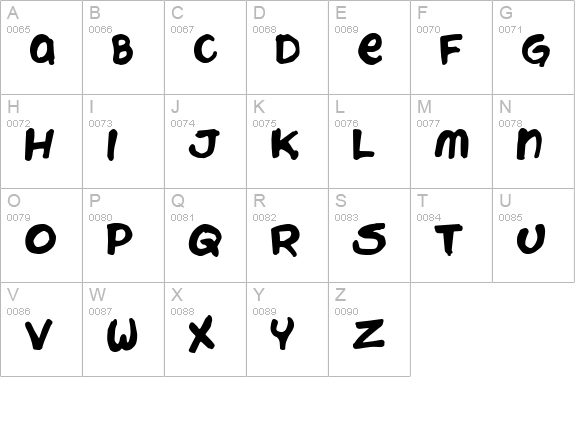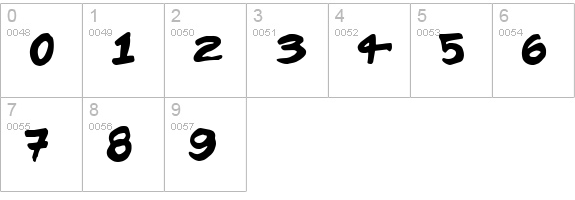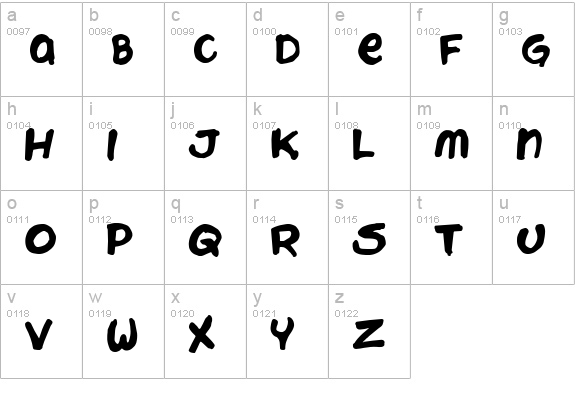
Introducing Chattery Teeth font, a quirky and playful typeface that adds a fun and whimsical touch to any design project. This font features exaggerated and bouncy letterforms that give a sense of movement and liveliness to your text. Perfect for creating eye-catching headlines, posters, invitations, and more. What's even better is that Chattery Teeth font is completely free to download at FontsMarket.com. That's right, you can easily enhance your designs with this unique and engaging font without any cost. Don't miss out on the opportunity to add a touch of charm and personality to your creations with Chattery Teeth font - download it for free today!